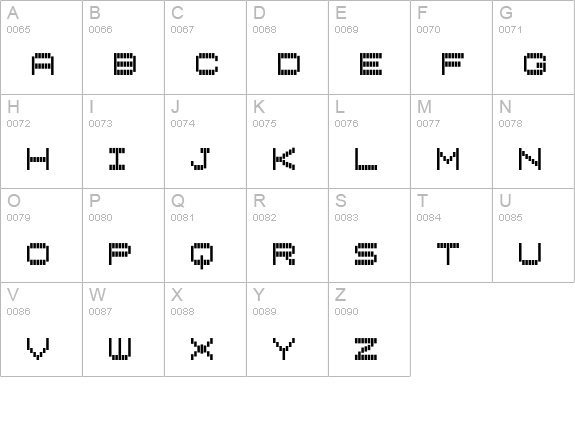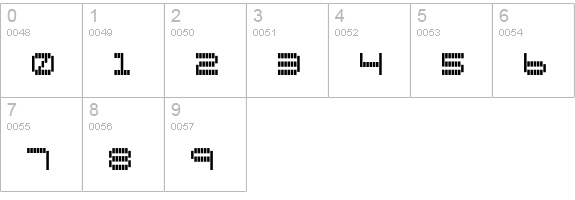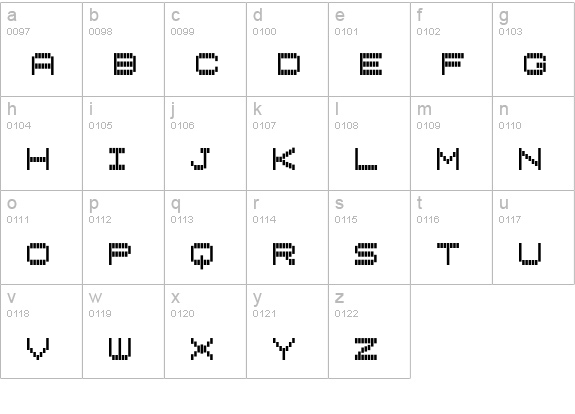
Vertical Tuning Font Details
Vertical Tuning is a visually captivating font that seamlessly blends modernity with a touch of elegance. Its sleek and sophisticated design lends itself perfectly to a wide range of creative projects, making it a versatile choice for designers, artists, and typographers alike. With its unique vertical alignment, Vertical Tuning stands out from the crowd, effortlessly commanding attention and adding a distinctive flair to any design. Whether it's used for logos, headlines, posters, or branding materials, this font offers a stylish and contemporary aesthetic that is sure to make a lasting impression. What sets Vertical Tuning apart is not only its stunning visual appeal but also its accessibility. This font is freely available to download at FontsMarket.com, allowing designers and enthusiasts to effortlessly incorporate it into their projects without any financial constraints. The clean and precise lines of Vertical Tuning ensure legibility, even at smaller sizes, making it a practical choice for both print and digital mediums. Its versatility extends to various design styles, from minimalistic and sleek to bold and daring, making it a reliable companion for any creative endeavor. In addition to its aesthetic appeal, Vertical Tuning boasts a wide range of characters, including uppercase and lowercase letters, numerals, punctuation marks, and special symbols. This vast character set allows designers to explore endless possibilities and create captivating typographic compositions that truly stand out. Whether you're a professional designer looking for a font that combines style and functionality, or an aspiring artist searching for a font that will elevate your creations, Vertical Tuning is the perfect choice. Its free availability at FontsMarket.com makes it even more accessible, ensuring that everyone can experience the beauty and versatility of this remarkable font.